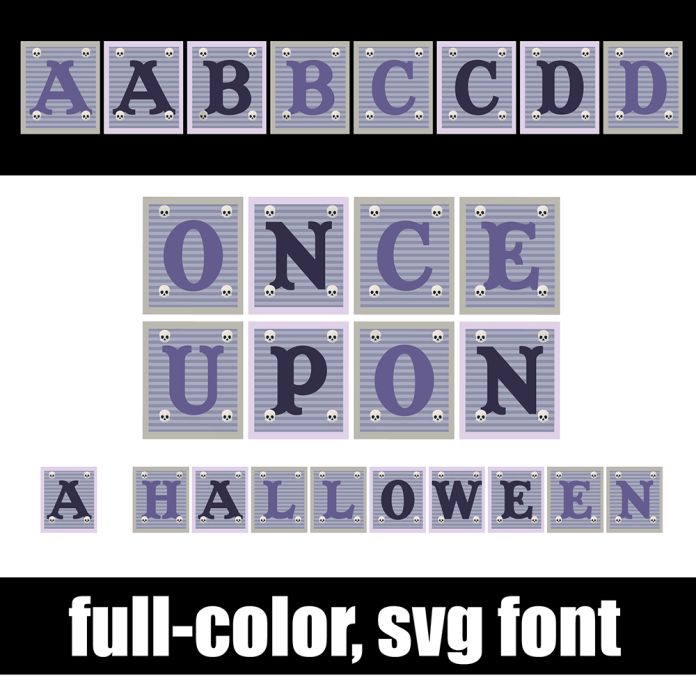
This full-color font features a boxed in serif in a Halloween themed frame. There is an alt version you can access through your system's character map that contains additional colors of all the letters. This font works best for titles, displays, posters and more. Please note color fonts will show as black in non compatible programs. This font type is compatible with Silhouette Studio.